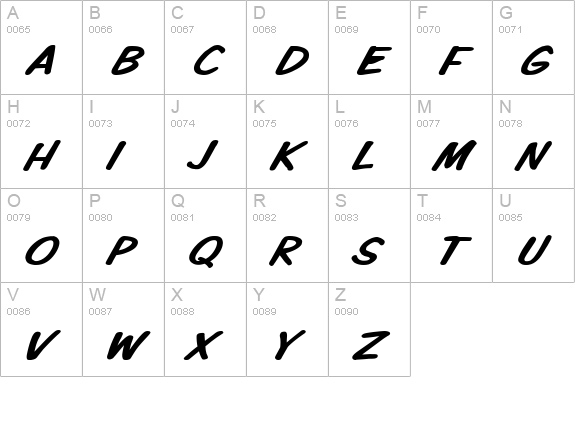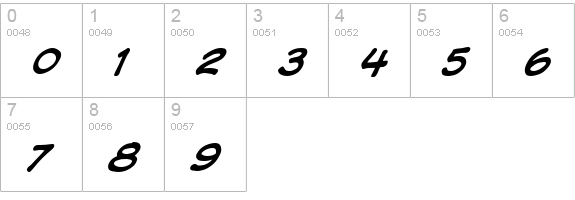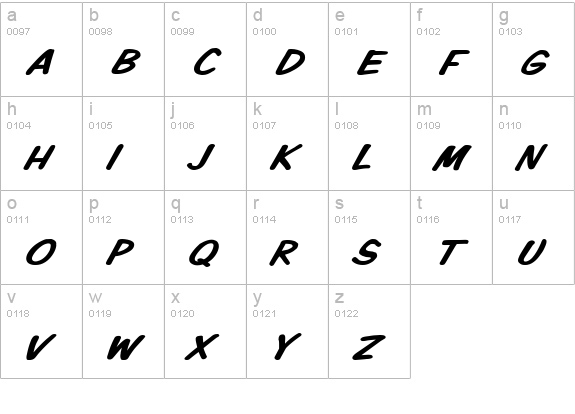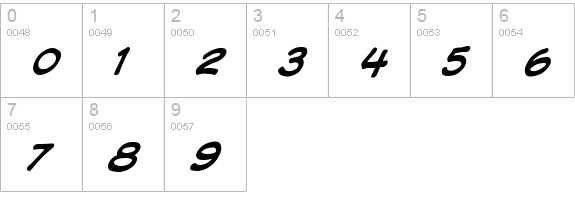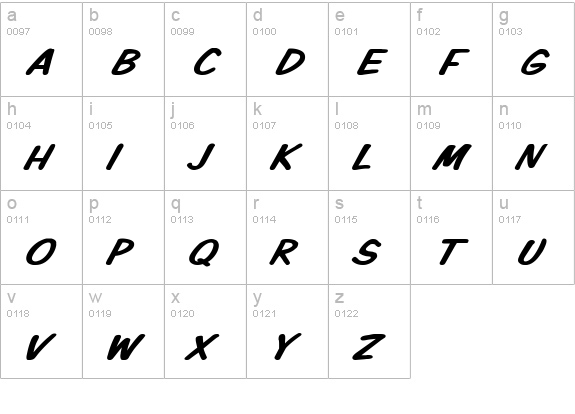
VTCKomixationSCItalic Font Details
VTCKomixationSCItalic is a captivating and playful font that exudes a sense of whimsy and creativity. With its slanted and italicized design, this font adds a dynamic touch to any project, instantly catching the eye and drawing attention. This font is perfect for those looking to add a unique and fun element to their designs. Whether you are working on a comic strip, a children's book, a poster, or even a logo, VTCKomixationSCItalic will bring your project to life with its energetic and expressive characters. What makes this font even more appealing is that it is available for free! You can easily download VTCKomixationSCItalic at FontsMarket.com, allowing you to enjoy its artistic charm without any cost. This means that you can freely incorporate this font into your creative endeavors without worrying about breaking the bank. With its freely available download, VTCKomixationSCItalic opens up a world of possibilities for designers, artists, and enthusiasts alike. So go ahead and bring a touch of playfulness and excitement to your next project with this delightful font.